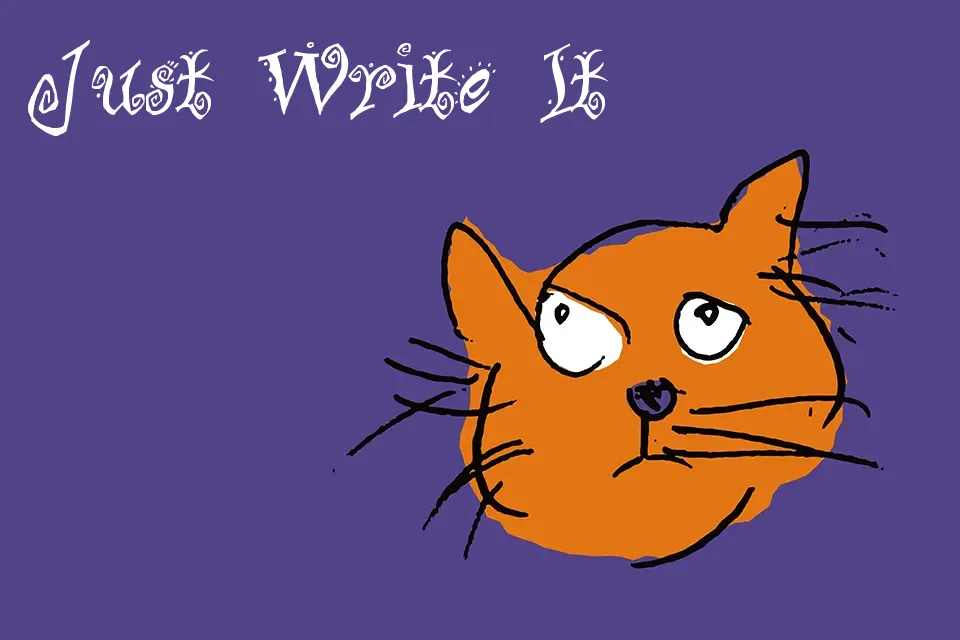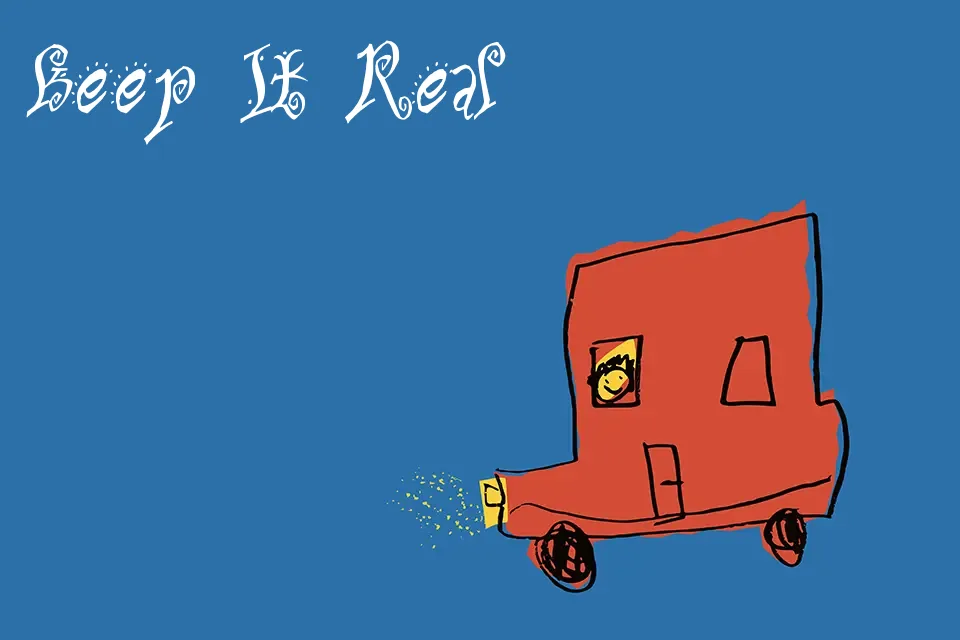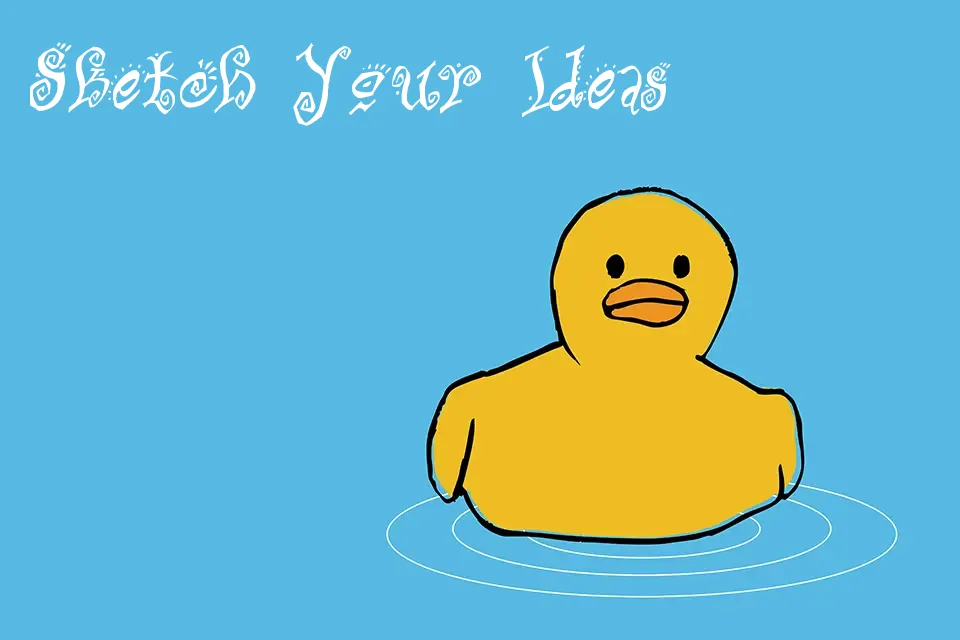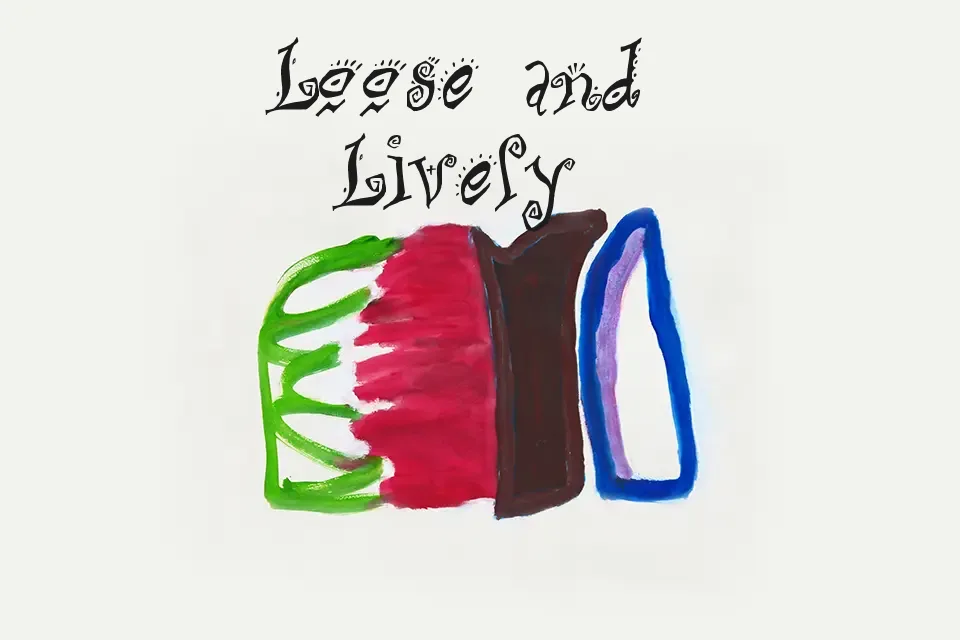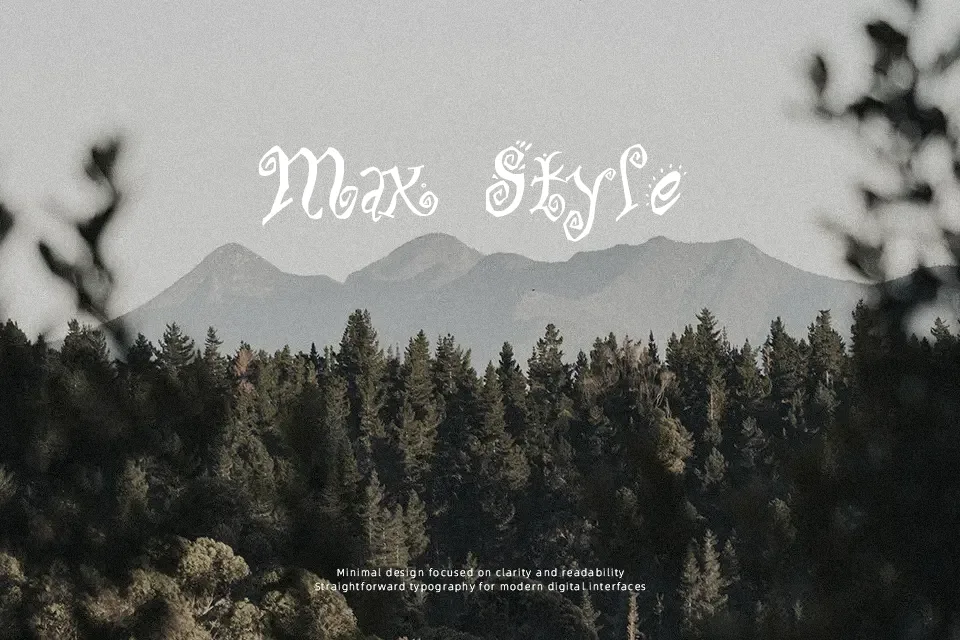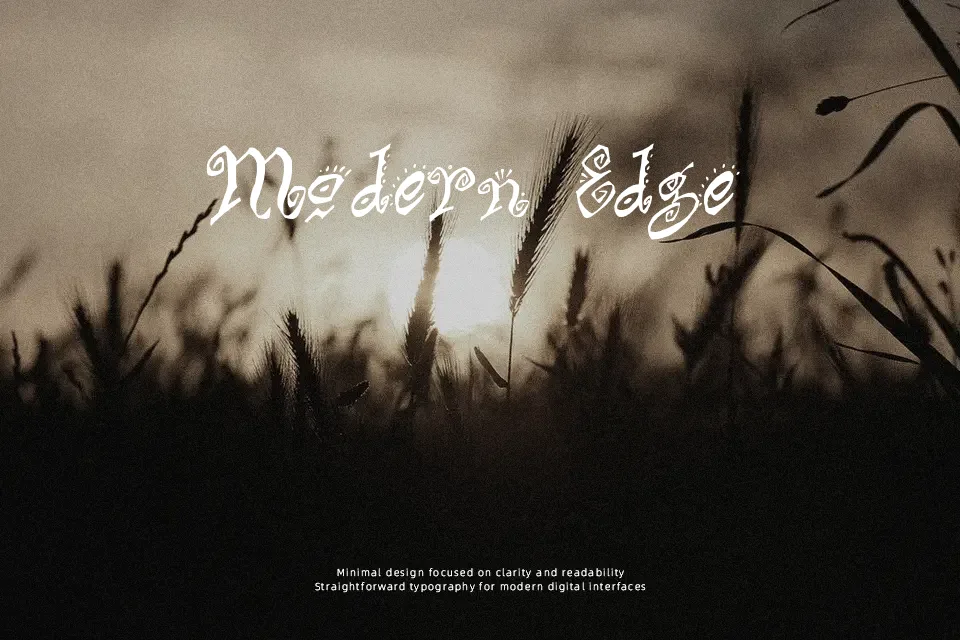
Bitchin Font
Designed by Peter Stanton
Bitchin is a quirky, handwritten typeface originally inspired by casual chalkboard menu lettering. Designed by Peter Stanton, this font features lively, curly strokes and an organic structure that delivers an authentic hand-drawn feel. Its bouncy baseline and decorative loops inject a distinct sense of fun into layouts. The typeface shines when applied to cozy café menus, energetic social media graphics, or playful event posters requiring an approachable tone. However, Bitchin struggles in formal corporate contexts, as its extravagant curls quickly compromise readability in dense body text. If you need a spirited, informal touch for a creative headline or boutique packaging, this design provides an expressive, friendly energy that feels refreshingly human.
Cozy café and restaurant menus
Playful event posters and flyers
Approachable social media graphics
Formal corporate branding
Dense body text and long paragraphs
Small digital interface elements
Perfect for headline, packaging, and poster, with a artistic and decorative style.